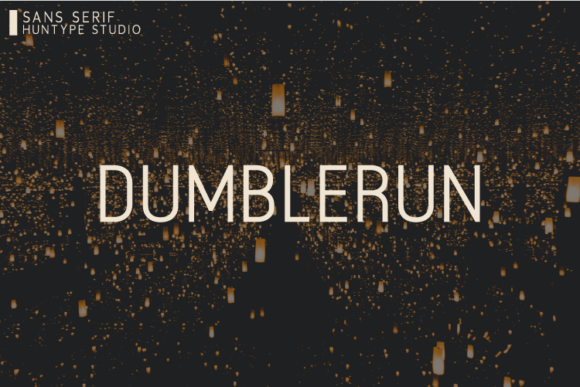
The Perfect Blend of Elegance and Versatility
Have you ever found yourself staring at a blank page, trying to decide on the perfect font to bring your creative vision to life? It’s a feeling we’ve all been there, and it’s precisely this moment when the right font can make all the difference. For designers seeking an exquisite yet subtle look, the Dumblerun Font is the perfect solution. This modern sans serif font is designed to add a touch of sophistication to any project.
Whether you’re working on a high-end branding project or a personal blog, the Dumblerun Font offers maximum versatility. Its clean lines and elegant curves make it an ideal choice for a wide range of applications, from print to digital media. With the Dumblerun Font, you can trust that your design will stand out from the crowd without overpowering the message.
Dumblerun Font Key Features
- Font Family: Dumblerun Font is a sans-serif font family, designed to be clean and modern.
- Character Set: The font family includes a wide range of characters, including Latin, Cyrillic, and Greek alphabets, as well as punctuation and symbols.
- Unique Characteristics: The font’s distinctive rounded edges and subtle irregularities give it a friendly, approachable feel, making it suitable for body text, headings, and titles.
Dumblerun Font Review
I have to say, I was pleasantly surprised by the Dumblerun Font. Here are some things that work well:
- ✨ Unique character: The font has a quirky, playful feel to it that’s hard to find in other fonts. It’s perfect for adding some personality to your designs.
- ✨ High legibility: Despite its unconventional look, the font is surprisingly easy to read, making it a great choice for body text or headings.
- ✨ Versatile: Dumblerun Font can be used in a variety of contexts, from digital products to print materials, and it looks great in both cases.
- ⚠️ Limited language support: The font only includes characters for the Latin alphabet, which may be a problem for designers who need to work with other languages.
- ⚠️ Not ideal for formal or professional designs: The font’s playful nature may not be suitable for formal or professional projects, where a more traditional or elegant font is often preferred.
Overall, I think the Dumblerun Font is a great choice for designers who want to add some personality to their designs. While it may not be suitable for every project, it’s a versatile and high-quality font that’s definitely worth considering.
Tips: Use Dumblerun Font for bold and playful headings, and pair it with a clean sans-serif font for body text.
Tips: Use Dumblerun Font for creative typography projects, such as posters or invitations.
Tips: Use Dumblerun Font for eye-catching headings and titles, and pair it with a clean sans-serif font for body text.
Dumblerun Font is perfect for:
1. Creative typography projects, such as posters, invitations, and social media graphics.
2. Eye-catching headings and titles in presentations, documents, and websites.
3. Adding a playful and bold touch to your designs.
Alternatives to Dumblerun Font
Bebas Neue is a modern sans-serif font designed by Rasmus Andersson. It’s perfect for use in headings, titles, and logos due to its clean and minimalist aesthetic.
Compared to Dumblerun Font, Bebas Neue has a more modern feel and is more suitable for digital use. While Dumblerun Font has a more distressed, vintage look, Bebas Neue is ideal for contemporary designs.
Playfair Display is a luxurious, high-end serif font designed by Claus Eggers Sørensen. It’s best used for titles, headings, and other high-impact text where a touch of elegance is needed.
Unlike Dumblerun Font, which has a distressed look, Playfair Display is refined and sophisticated. While Dumblerun Font is perfect for vintage or retro-inspired designs, Playfair Display is ideal for high-end fashion, luxury brands, or classical designs.